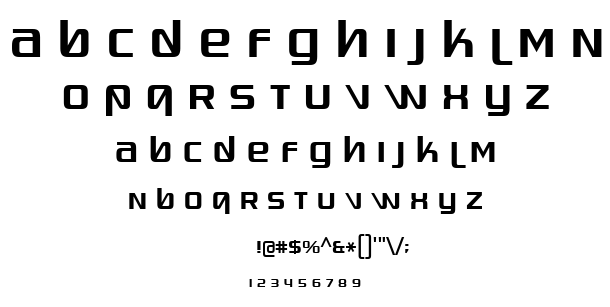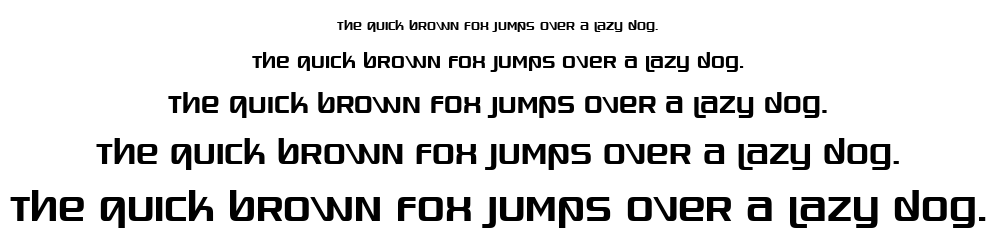
Quadaptor is a retro, techno font inspired by the font used in the logo for Dynaco audio equipment in the 1970s. Don’t forget to read the files inside the zip for details. Updated in 2012.